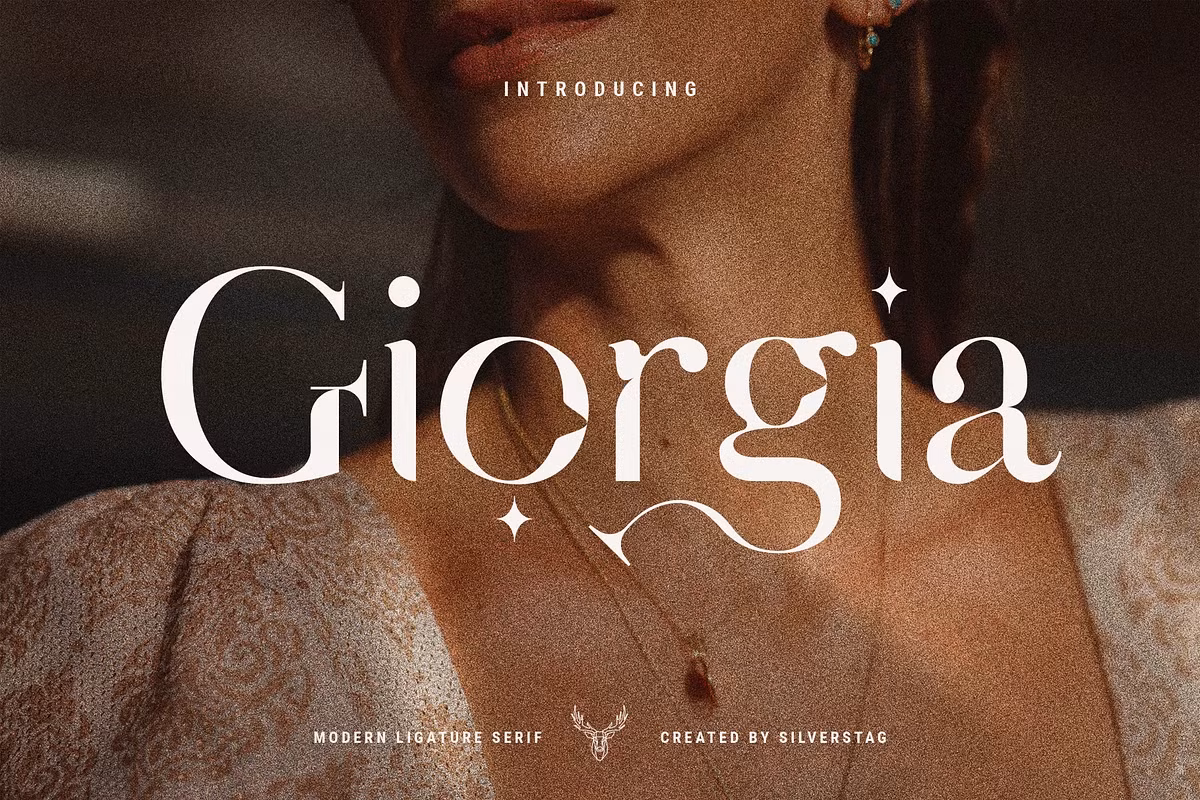
Giorgia - Elegant Ligature Serif Font Free Download is a stunningly graceful typeface that blends timeless serif structure with contemporary ligature design. Its refined curves, high contrast strokes, and stylish alternates make it ideal for luxury branding, wedding invitations, editorial design, fashion lookbooks, and upscale packaging.
This font exudes sophistication and femininity, offering a high-end feel that elevates any design. The thoughtfully designed ligatures add a unique, artistic flair, allowing you to create custom-looking typography effortlessly.